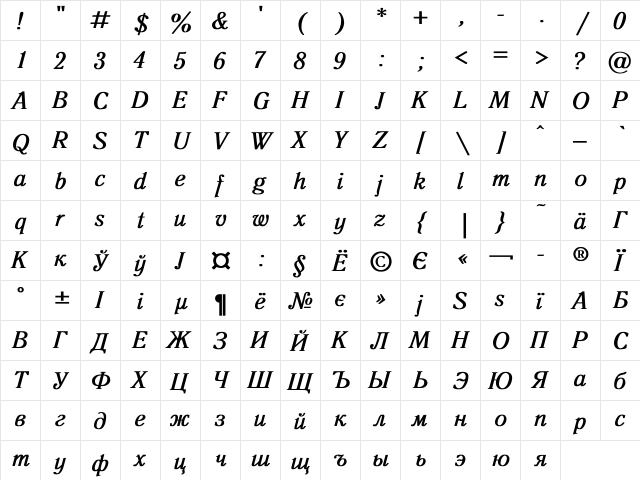
Antiqua Bold Italic
Design Context for Antiqua Typeface
Antiqua is a composed and adaptable typeface that performs quietly and consistently across a wide range of design contexts. Its italic angle brings a sense of urgency and motion to the letterforms. Its bold stroke weight gives it real presence on the page.
Pro Tip: Use Antiqua for emphasis, pull quotes, and subheadings where its slanted energy can add rhythm to the layout.